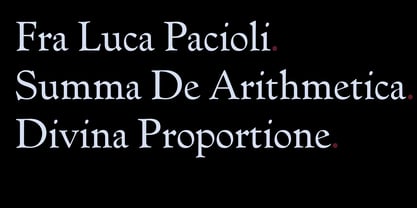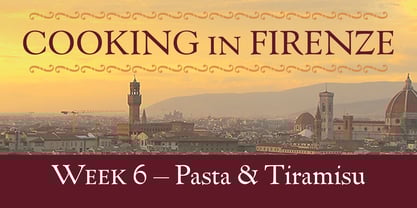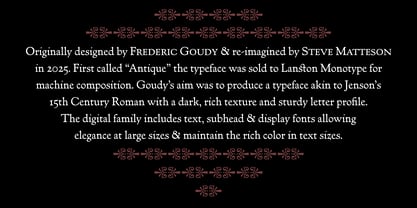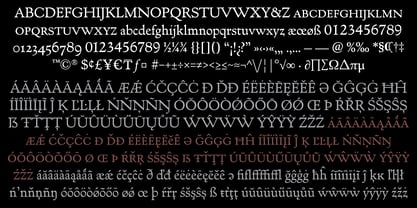
Goudy Lanston
Reimagined by Steve Matteson in 2025. Goudy Lanston was designed by Frederic Goudy for Lanston Monotype and the Caslon Typefoundry in 1912. Originally named “Antique” the typeface was sold to Lanston Monotype for machine casting. Goudy’s aim was to produce a typeface akin to Jenson’s Roman with a dark, rich texture and sturdy profile. The family includes text, subhead and display versions to optimize elegance at large sizes and rich color in text.
Steve Matteson is a veteran type designer based in Louisville, Colorado. With over 100 type designs to his name spanning corporate branding to whimsical display designs, Steve has a genuine love of letterforms and their communications potential. He has founded Matteson Typographics to publish new custom and commercial typefaces including the Aptos family for Microsoft Office. He finds inspiration in letter press printing, music and the outdoors. Enjoy these typefaces for their utility, their roots and their carefully crafted quality.